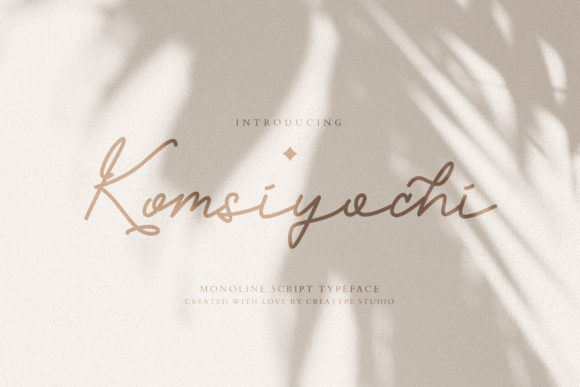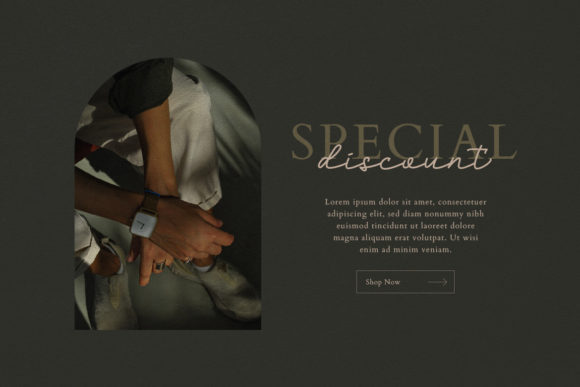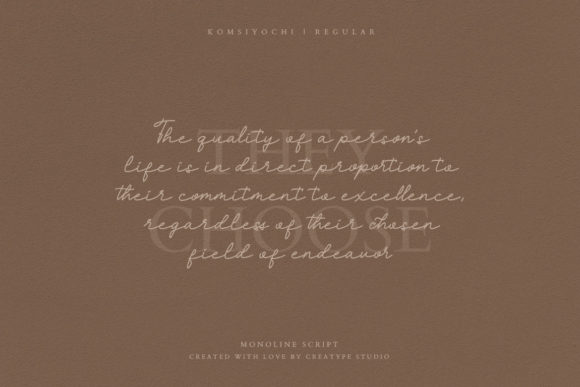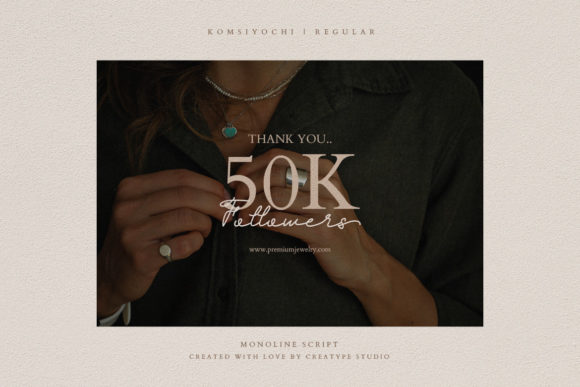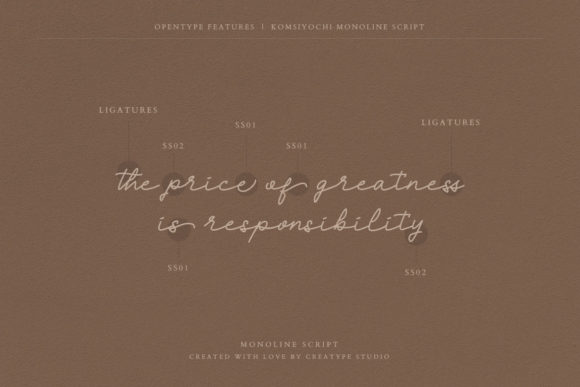
About Komsiyochi Script Font
Komsiyochi Script is a ravishing and stylish script font. This font is PUA encoded which means you can access all of the glyphs and swashes with ease!
Add it to your favorite creations and let yourself be amazed by the outcome generated.